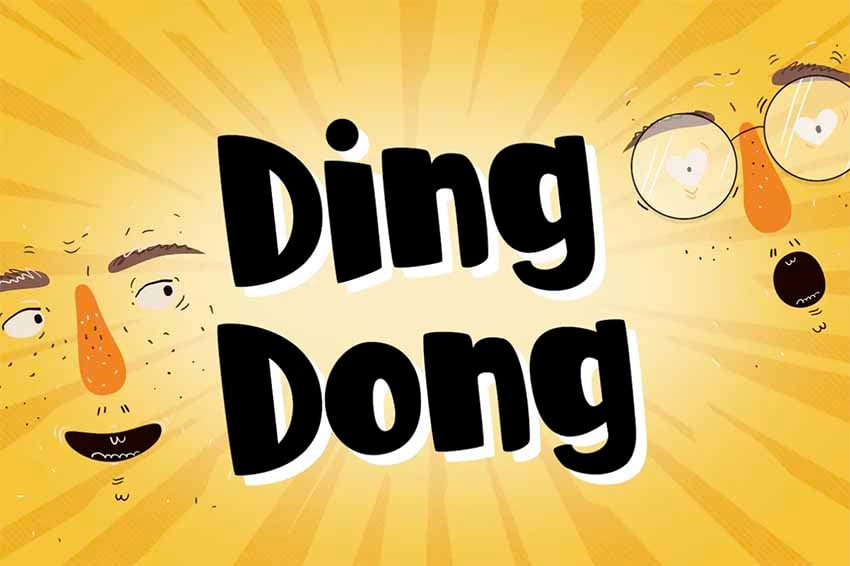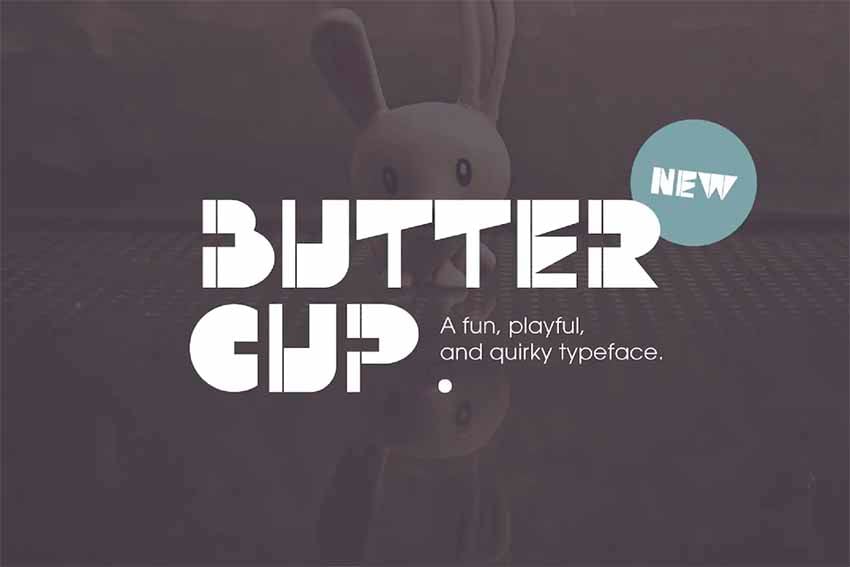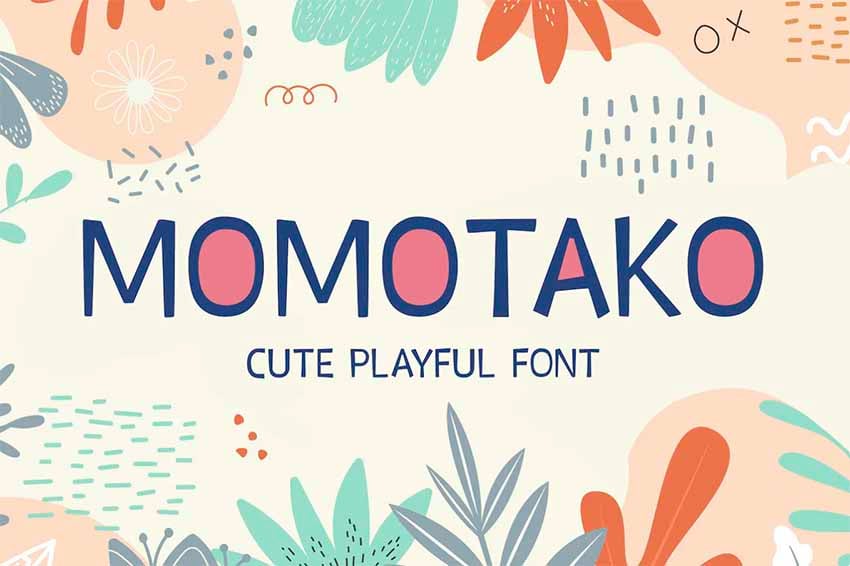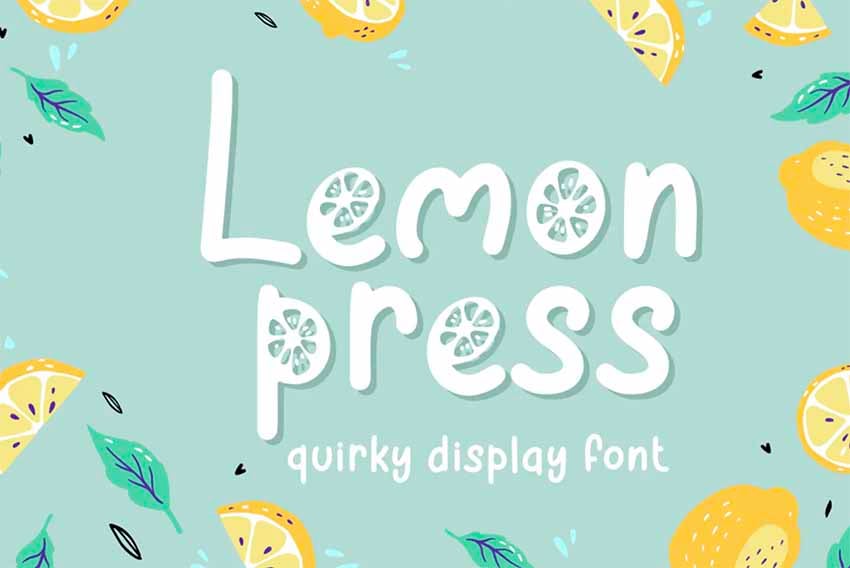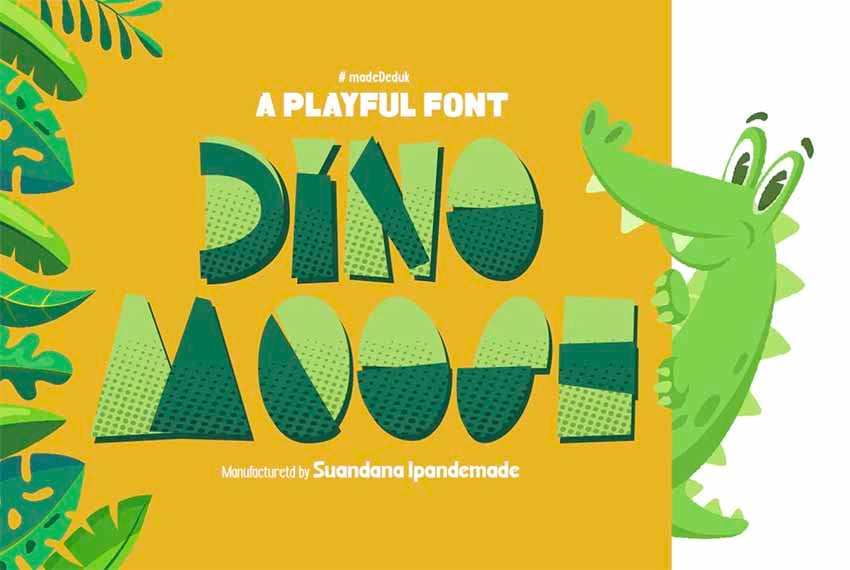
43 Best Playful Fonts (Fun & Games Fonts!)
In this article, we show you a list of playful typography that appeals to children. Let's take a look at some of the most fun and playful fonts!
1. Morales Bonaven Playful Fonts (OTF, TTF)
Groovy and playful fonts like Morales Bonaven are hard to come by. This reverse contrast font is inspired by retro 70s styles. It's perfect for children's games, party invitations, and branding.
2. Pop Culture Fun Word Fonts (OTF, TTF, WOFF)
This classic display font is bold yet elegant. While it could be used in a grown-up setting, it's also perfect for kids. This playful typeface can be used in children's games, YouTube thumbnails, and social media.
3. My Coffee Break Font Playful (OTF, TTF, WOFF)
My Coffee Break is a child handwriting font that's handcrafted and fun. Each character has a natural touch, with uneven strokes and a combination of lowercase and uppercase. Use this fun and playful font for card games, invitations, and branding.
4. Puff Square Easy Fun Fonts (OTF, TTF)
If you're looking for a playing card font, this playful typography is perfect. With bold and round uppercase characters, this font is great for transmitting a youthful personality. Since the font has rounded corners, it comes across as playful and easygoing.
5. Marchton Fun Typefaces (OTF, TTF, WOFF)
Marchton is one of the best playful fonts available. The uneven strokes on each character make it fun and give it movement. This bold display font has many ligatures and alternates that can help make your projects look seamless and natural.
6. Big Stomach Playful Fonts (OTF, TTF)
This child crayon font is great if you're looking for something with less structure and more of an organic feel. The quirky and playful typography is great for younger audiences that love a friendly personality. Use it as a playing card font or for branding projects and posters.
7. Earth Days Fun Word Fonts (OTF, TTF)
Earth Days is a bold, playful font inspired by Earth Day. This organic and fun font is perfect for modern child-based projects. Use the multiple glyphs and ligatures to create a natural personality in your projects.
8. Love is Spring Font Playful (OTF, TTF, WOFF)
This playful typography features sketch-like drawings within the characters. The monoline-style illustrations include hearts, swirls, and ornaments—perfect for kid's ornaments, Instagram posts, and greeting cards.
9. Easter Risen Easy Fun Fonts (TTF, OTF, WOFF)
Easter Risen is a playful typeface that's based on handwritten characters. It's fresh, classic, and ideal as a playing card font. This playful font is also suitable for branding, kids' books, and YouTube banners.
10. Fancy Arts Fun Typefaces (OTF, TTF, WOFF)
This handwritten font resembles a child crayon font while staying groovy. With the curvy and bottom-heavy structure, this font looks fun and playful. Use Fancy Arts for branding projects, invitations, and packaging.
11. Playful Child Fonts (OTF, TTF, WOFF)
Playful Child is one of the best playful fonts with its modern yet classy design. The font is highly legible, making it perfect to use as a playing card font or for designing your own game. This font comes with multiple language support, which is great if you're looking to translate or create a multi-language game.
12. Powerful Fun Typefaces (OTF, TTF)
This child handwriting font is like its name, Powerful. It features multiple layers that allow the characters to have their own colorful shadows. Choose between having a shadow, an inline effect, or just the simple font.
13. Portuis Ginger Easy Fun Fonts (OTF, TTF, WOFF)
This fancy child handwritten font features a high contrast between the strokes that adds a fun personality. The font also mixes uppercase with lowercase playful typography, and it's great for transmitting an easy-going vibe. This font is suitable for book cover designs, social media, and movie titles.
14. Metorius Font Playful (OTF, TTF)
This playful typeface with a geometric and fun look is great for a children's storybook. Metorius features straight edges and combines lowercase and uppercase characters to make the vibe more easygoing and friendly. This font is perfectly suitable for invitations, labels, and packaging.
15. Nice Trendy Fun Word Fonts (OTF, TTF, WOFF)
This trendy, playful font is inspired by the groovy 70s. The form features a narrow top and a wider bottom, giving it a bubble-like look. This bold, playful font is suitable for branding projects, invitations, and children's books.
16. Peachman Playful Fonts (OTF, TTF, WOFF)
This playful serif font features uneven slab serifs that give it movement and a friendly personality. It's clean, soft, and suitable for display projects. Use it also on Cricut, logo designs, and social media.
17. Flavory Fun Typefaces (OTF, TTF)
Flavory is one of the best playful fonts out there, and it comes with a set of two fonts. This type of font is perfect when you need a sans serif and a display font. With plenty of ligatures, Flavory is perfectly suited for packaging, children's books, and magazines.